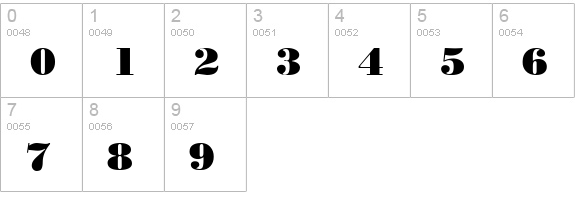
Beau Normal Font Details
Beau Normal is the standard, neutral variant in the Beau typeface family \xE2\x80\x94 well suited to general body text, paragraphs, and standard typographic work.
Beau Normal font is a modern and elegant typeface that exudes sophistication and style. With its clean lines and sleek design, Beau Normal is perfect for a wide range of design projects, from branding to editorial design. This versatile font is sure to make your text stand out and grab attention. The best part? Beau Normal font is completely free to download at FontsMarket.com. Whether you're a professional designer or just looking to add a touch of class to your personal projects, Beau Normal is a fantastic choice. Don't miss out on the opportunity to enhance your designs with this beautiful and timeless font. Download Beau Normal today and elevate your typography game to the next level.